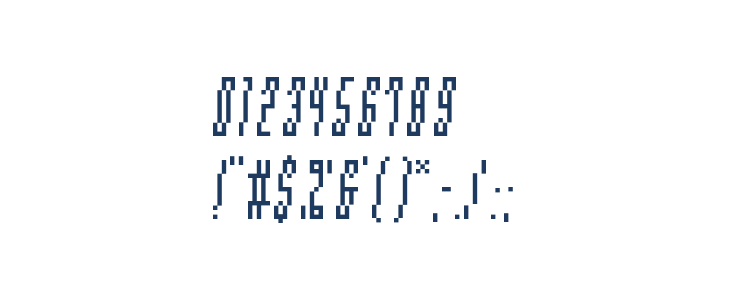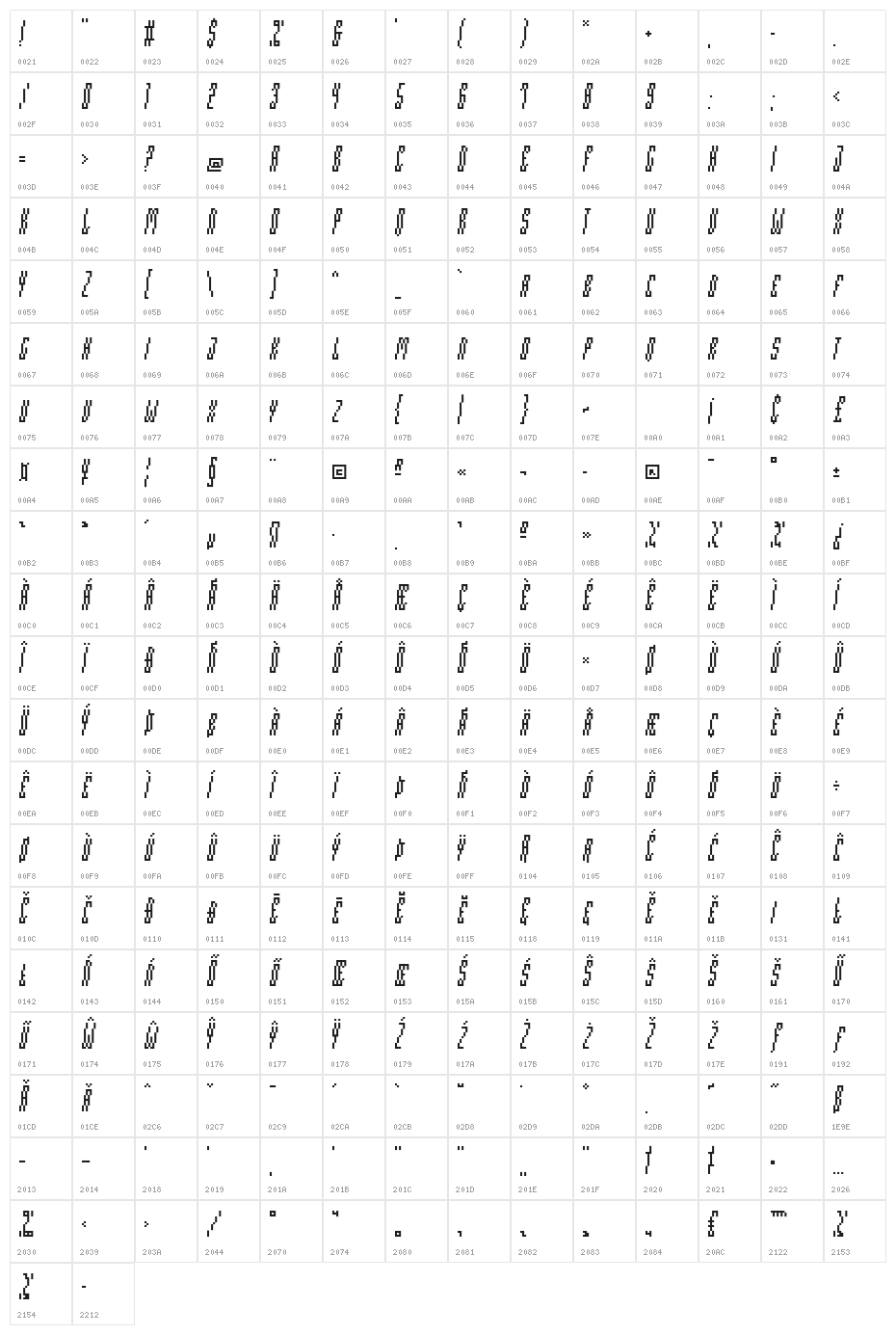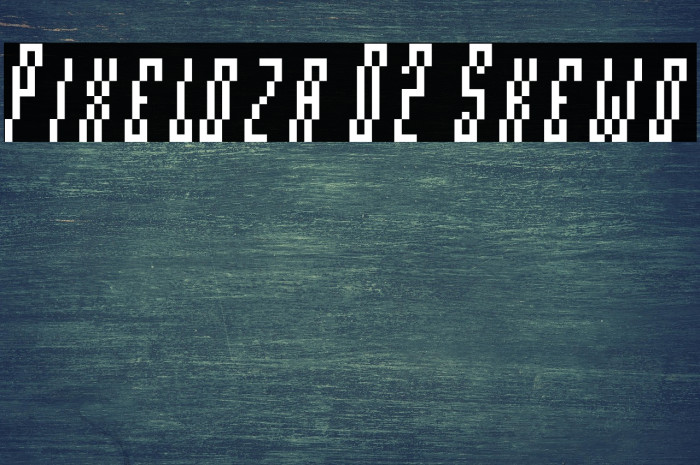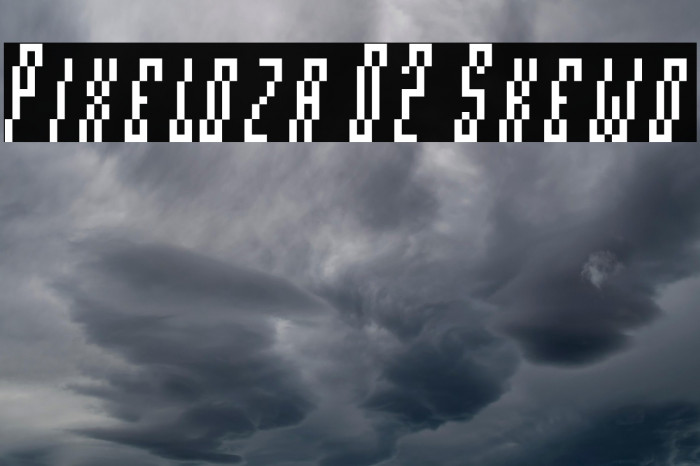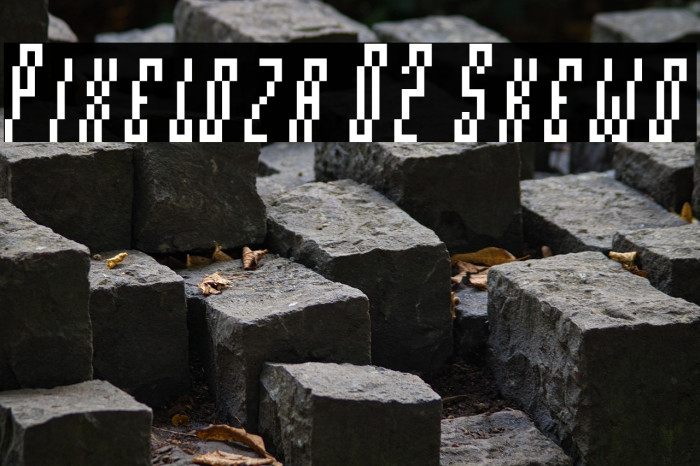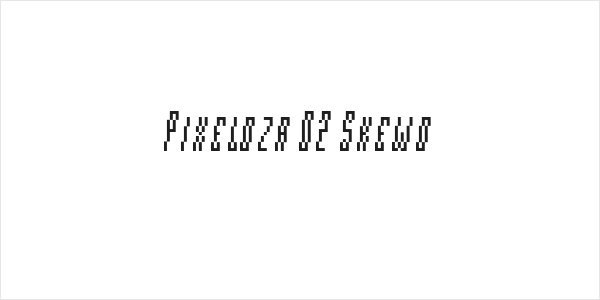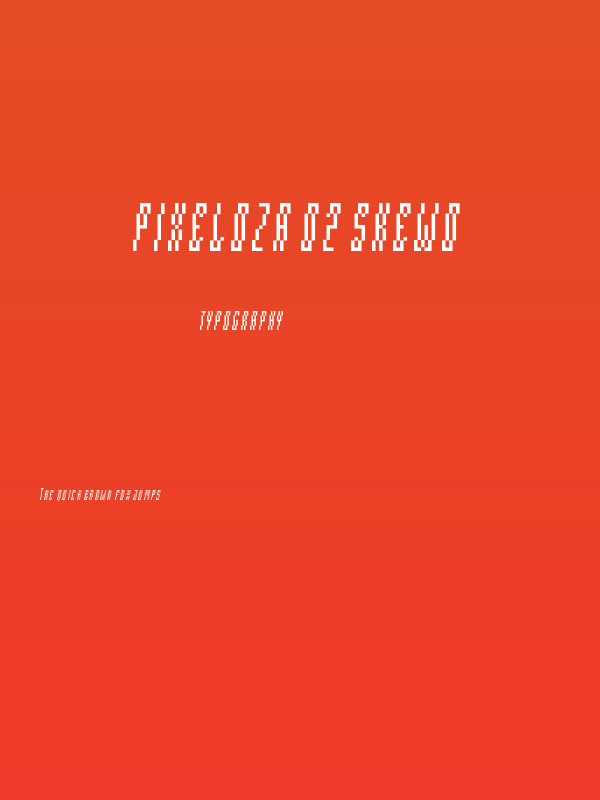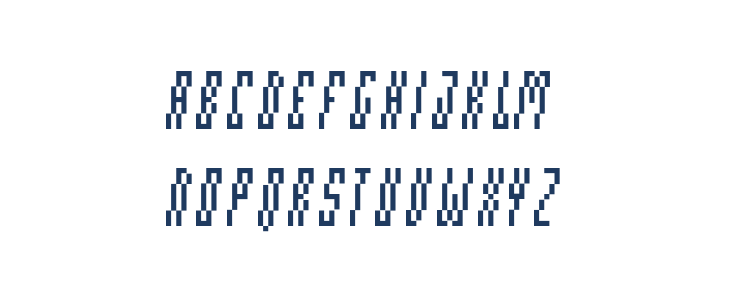
Pixeloza 02 Skewo Font
Pixeloza 02 Skewo Description
This font features a pixelated, digital aesthetic with a distinct skewed design, giving it a dynamic and modern appearance. Each character is composed of small square blocks, creating a retro, video game-like feel. The letters are slightly slanted, adding a sense of movement and energy. The uppercase and lowercase letters maintain a consistent style, with clear differentiation between each character. Numbers and special characters follow the same pixelated and skewed pattern, ensuring uniformity across the font. This style is reminiscent of early computer graphics and digital displays, making it ideal for projects that aim to evoke nostalgia or a tech-oriented theme.
| Overall Style | Modern, Retro |
| Use Case | Headlines, Logos, Digital Art |
| Proposed Projects | Ideal for video game designs, tech-themed posters, digital art, and retro-style branding. |